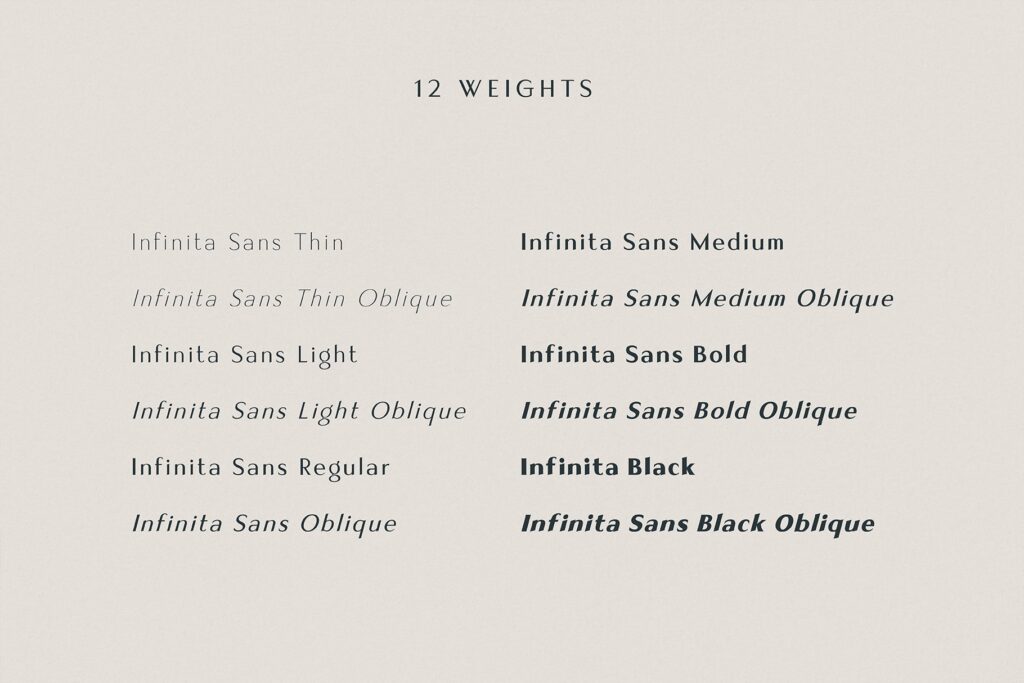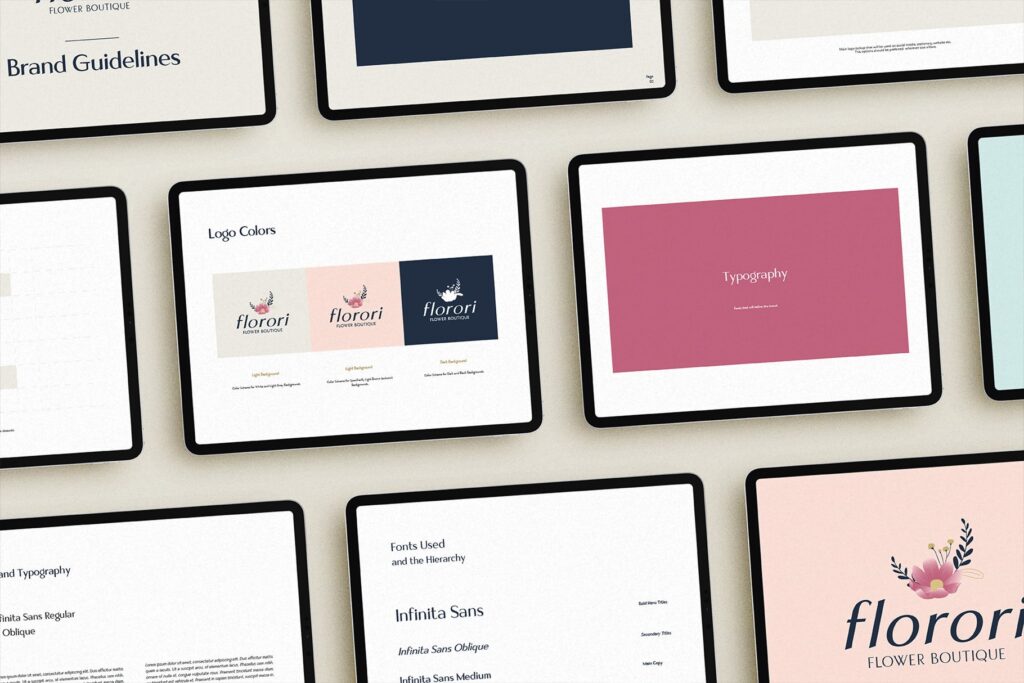
Prepare to embark on a design journey like no other, where sophistication takes center stage and innovation flows effortlessly. Behold, Infinita Sans, the embodiment of refined typography! This exquisite elegant typeface is your ticket to unlocking a world of limitless creativity, where each stroke of the pen becomes a work of art.
Infinita Sans isn’t just a typeface; it’s a proclamation of elegance, precision, and boundless creativity. It’s your secret weapon to craft designs that are visually stunning and eternally memorable. Elevate your projects, mesmerize your audience, and etch your signature with Infinita Sans – the Elegant Typeface that sets new benchmarks in design perfection.